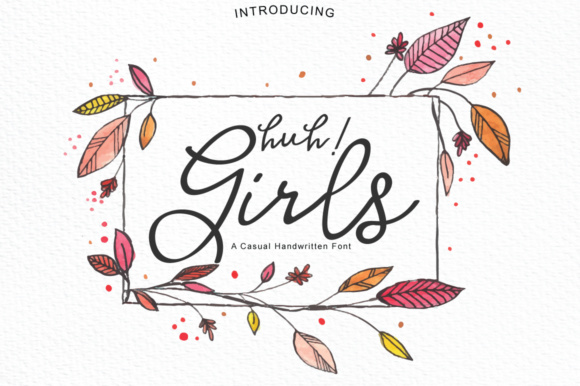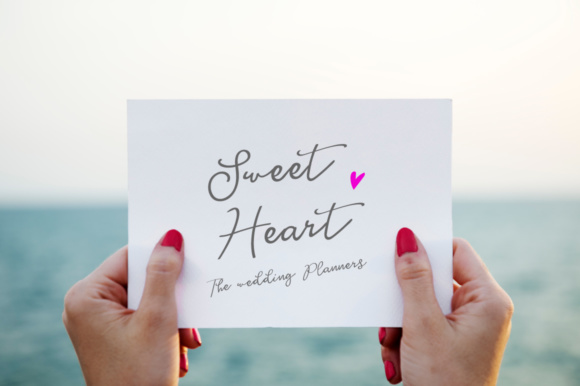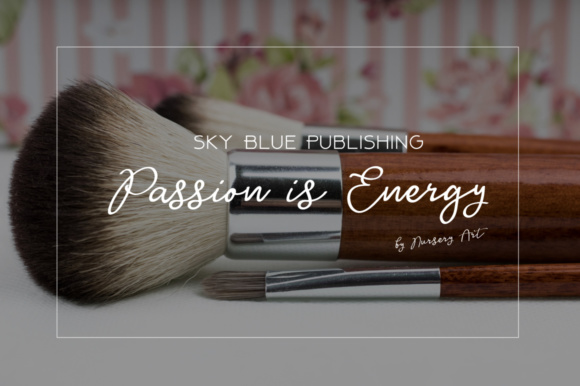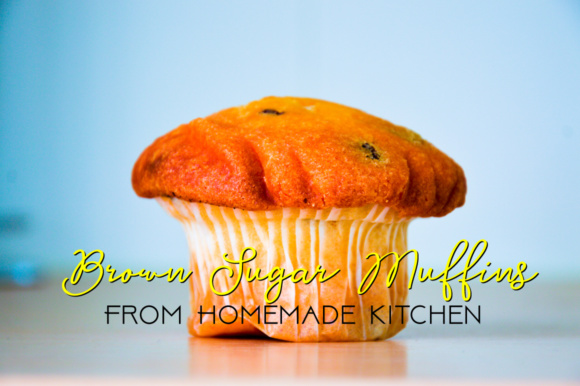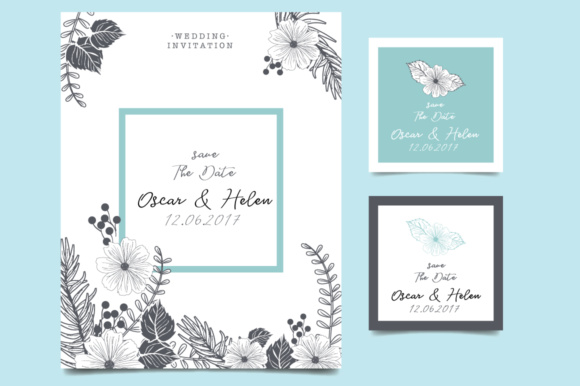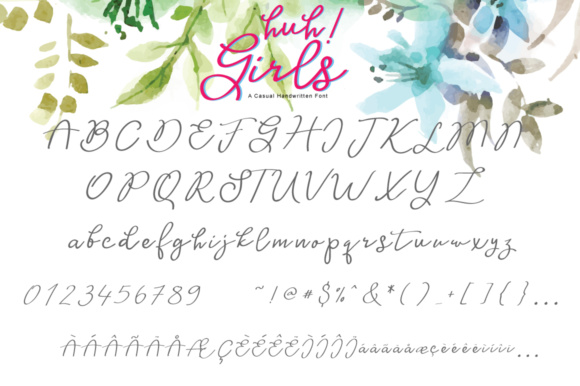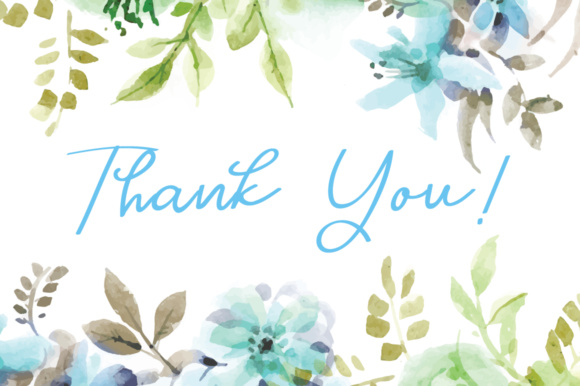
Huh! Girls Font
About Huh! Girls Font
Huh! Girls is a casual brush font with a multitude of letter variations to make that perfect and unique design.
This font is perfect for a wedding invitation, your blog or (personal) feminine branding. Also by using Huh! Girls, you can create a logo or beautiful frame for your home.